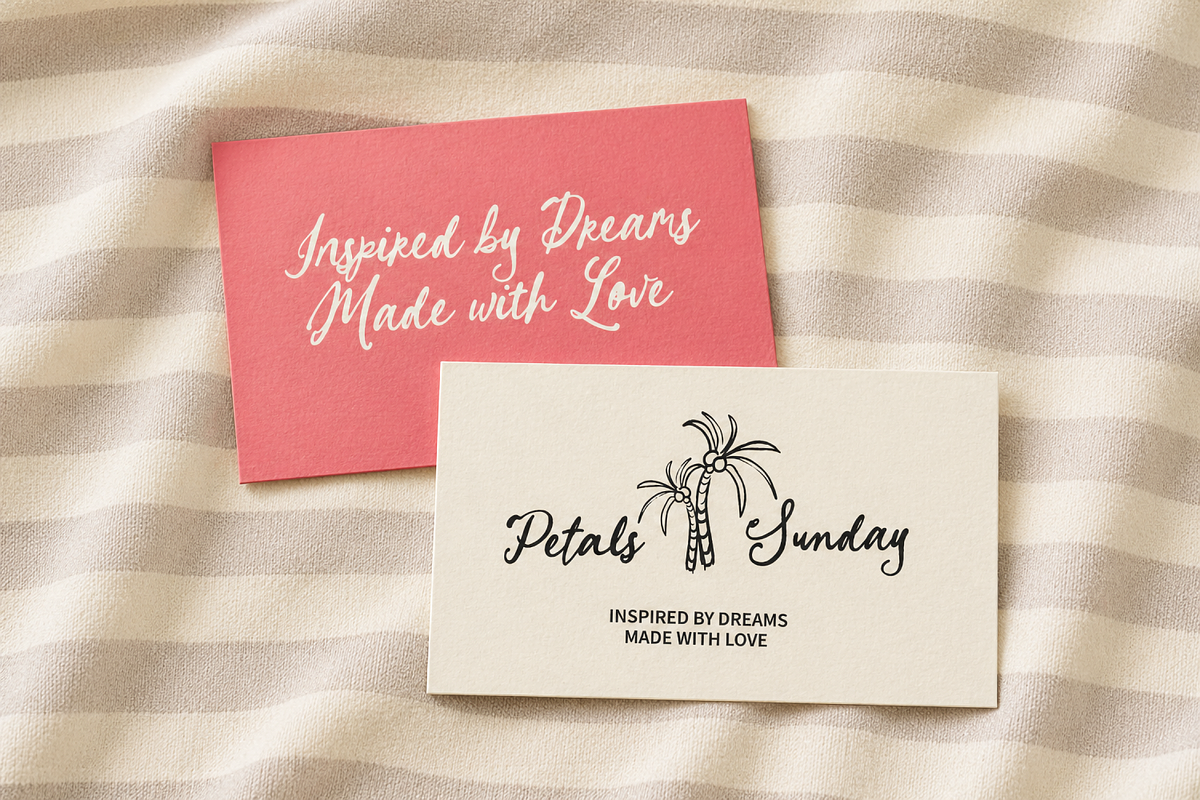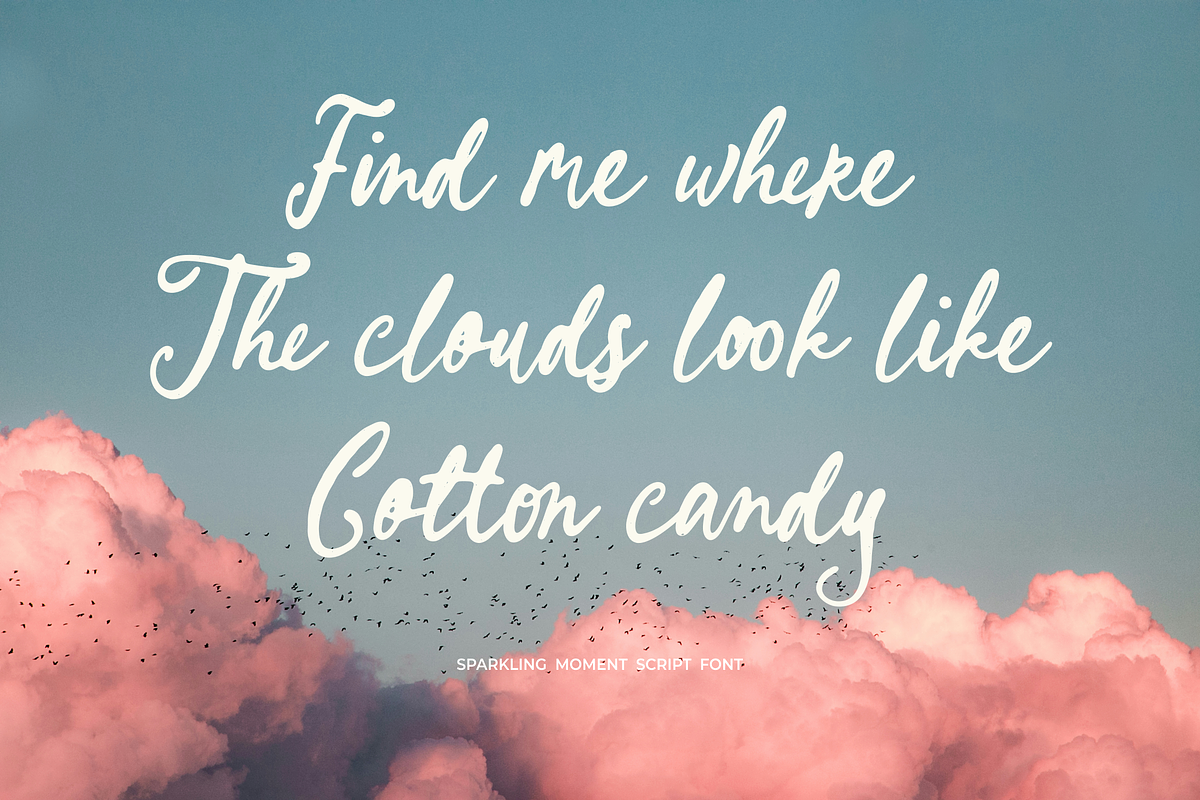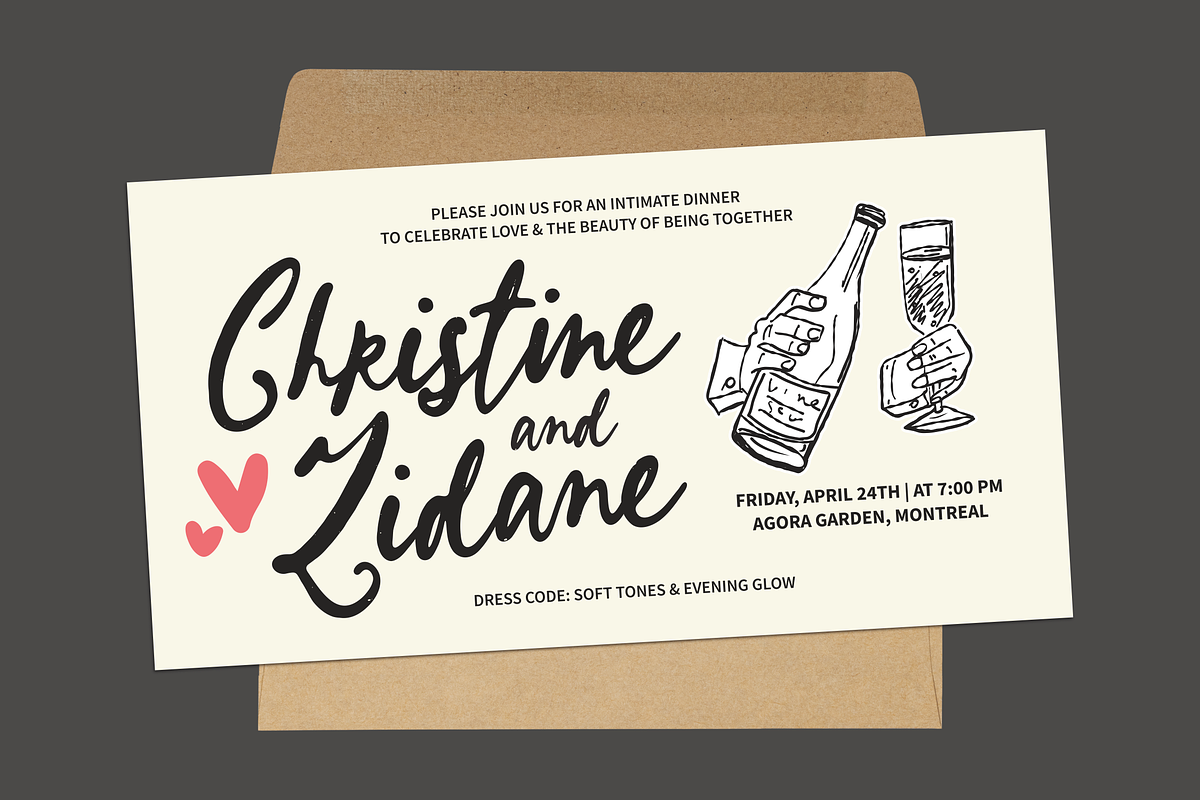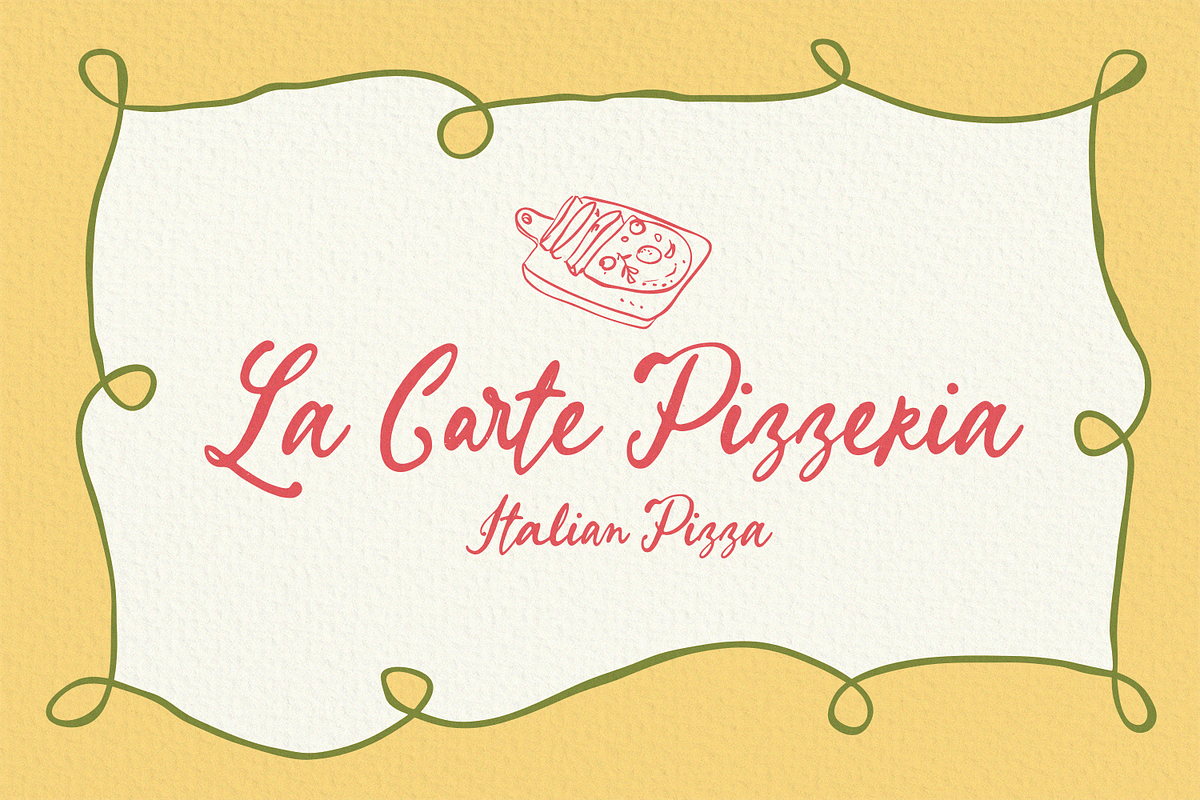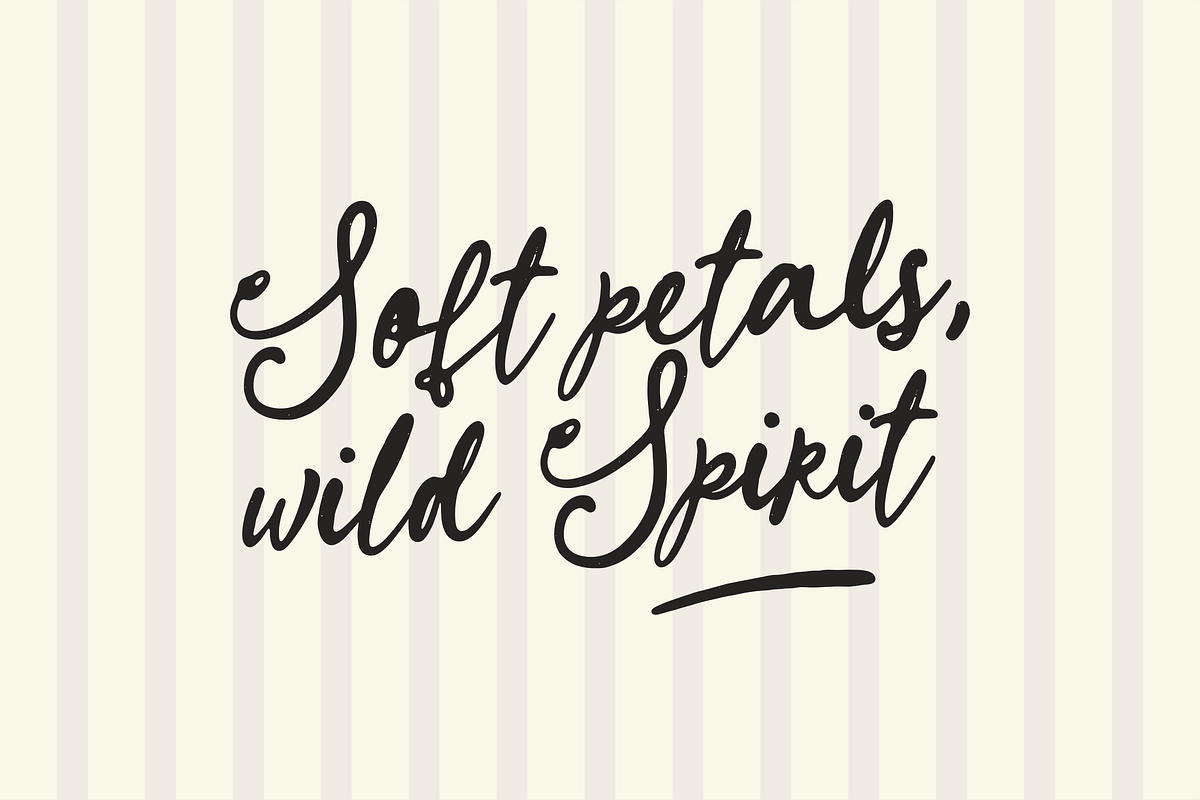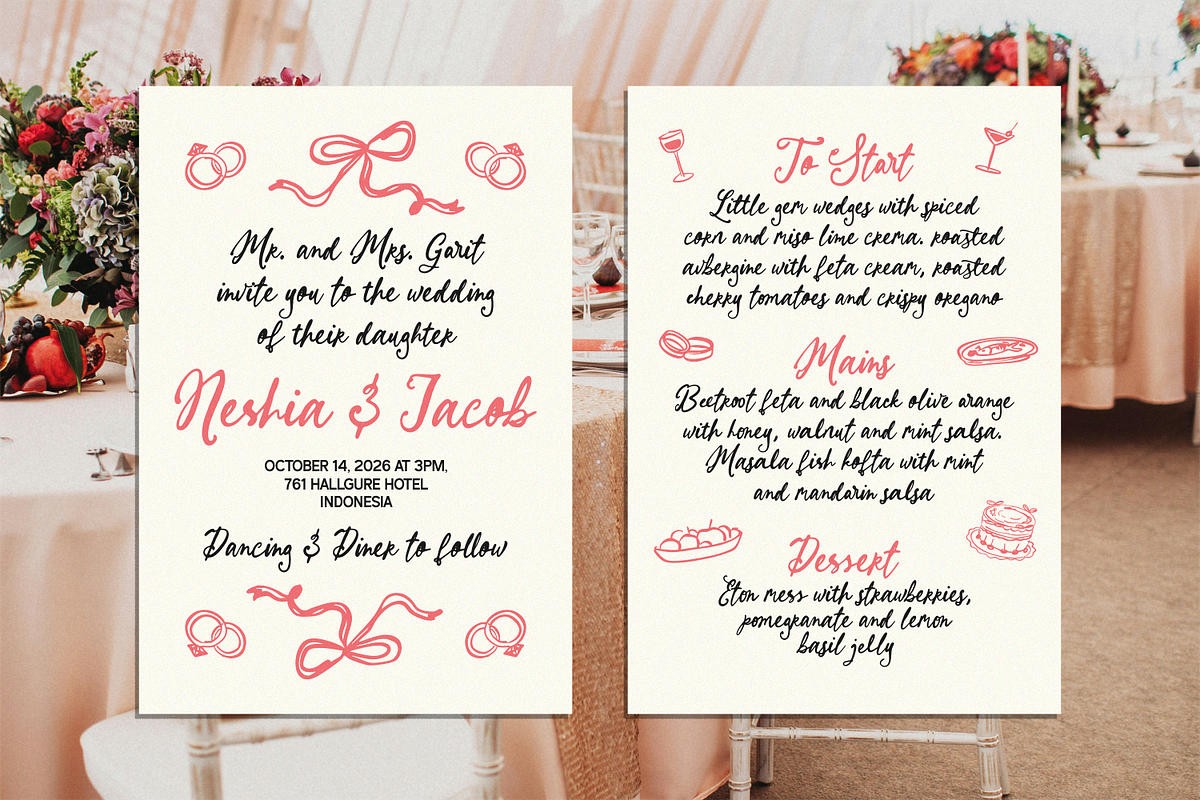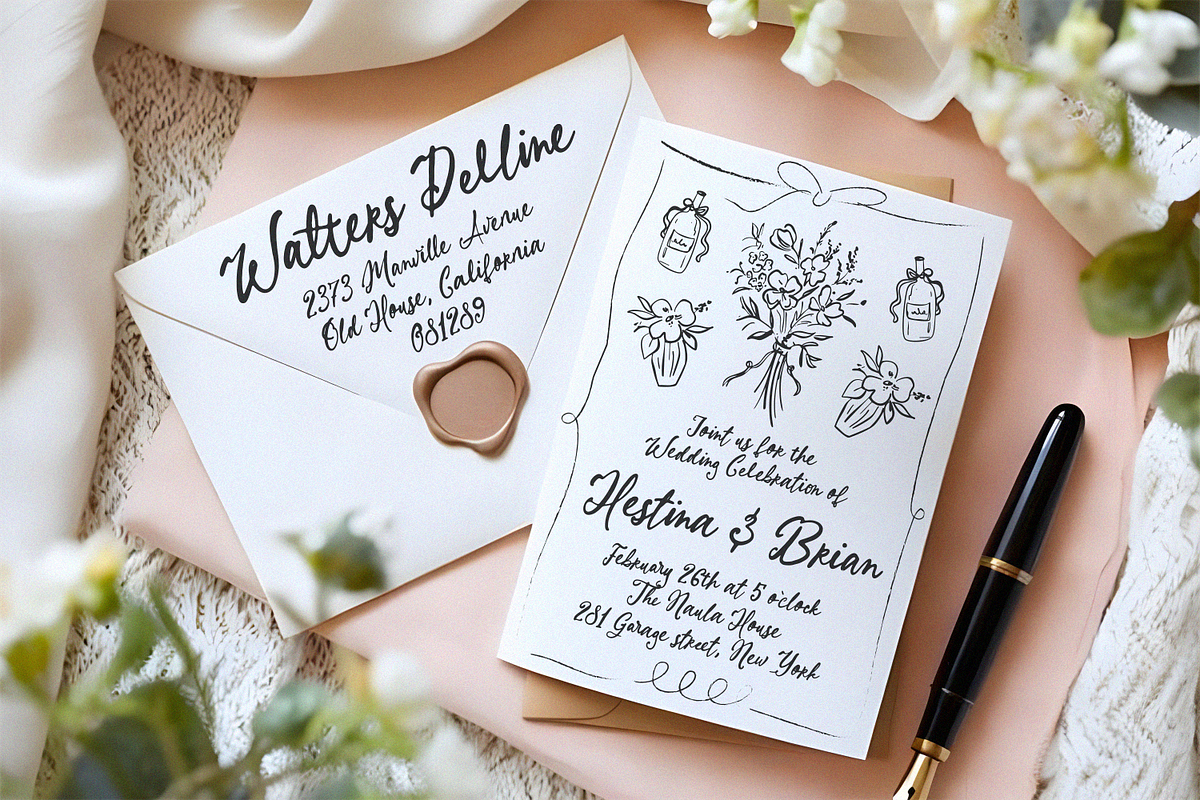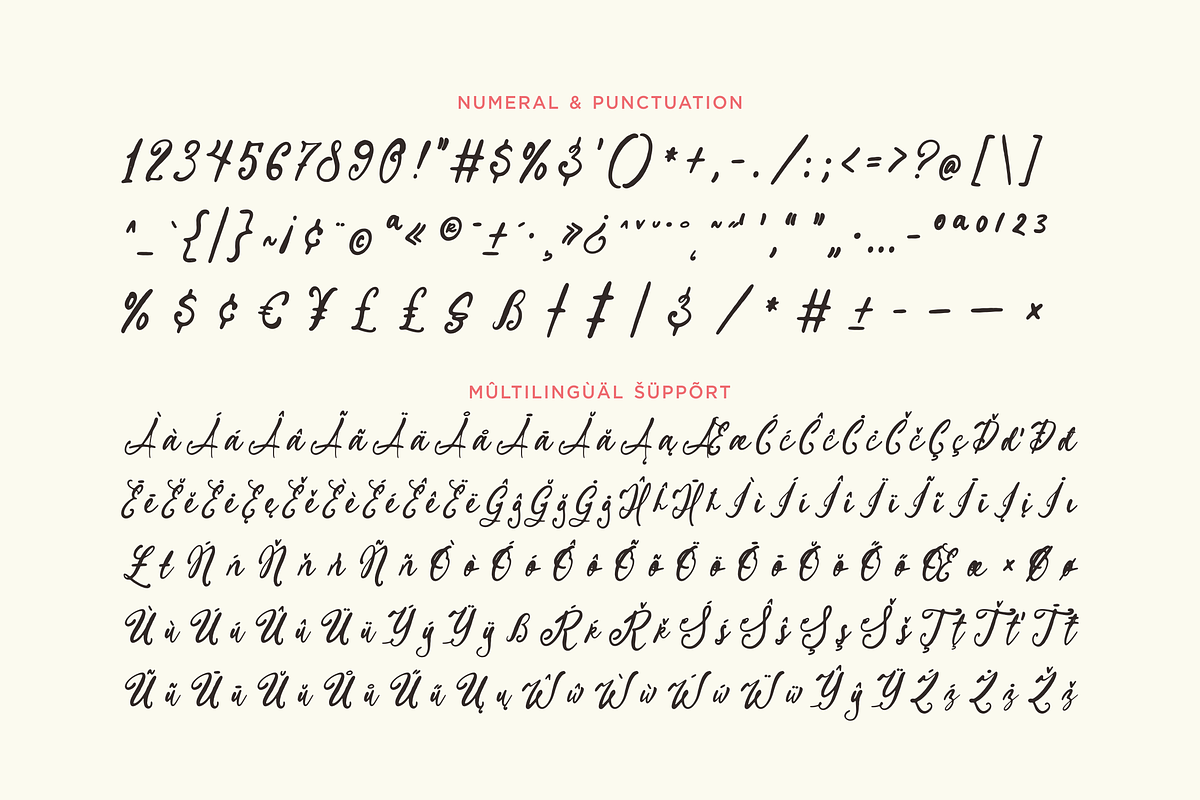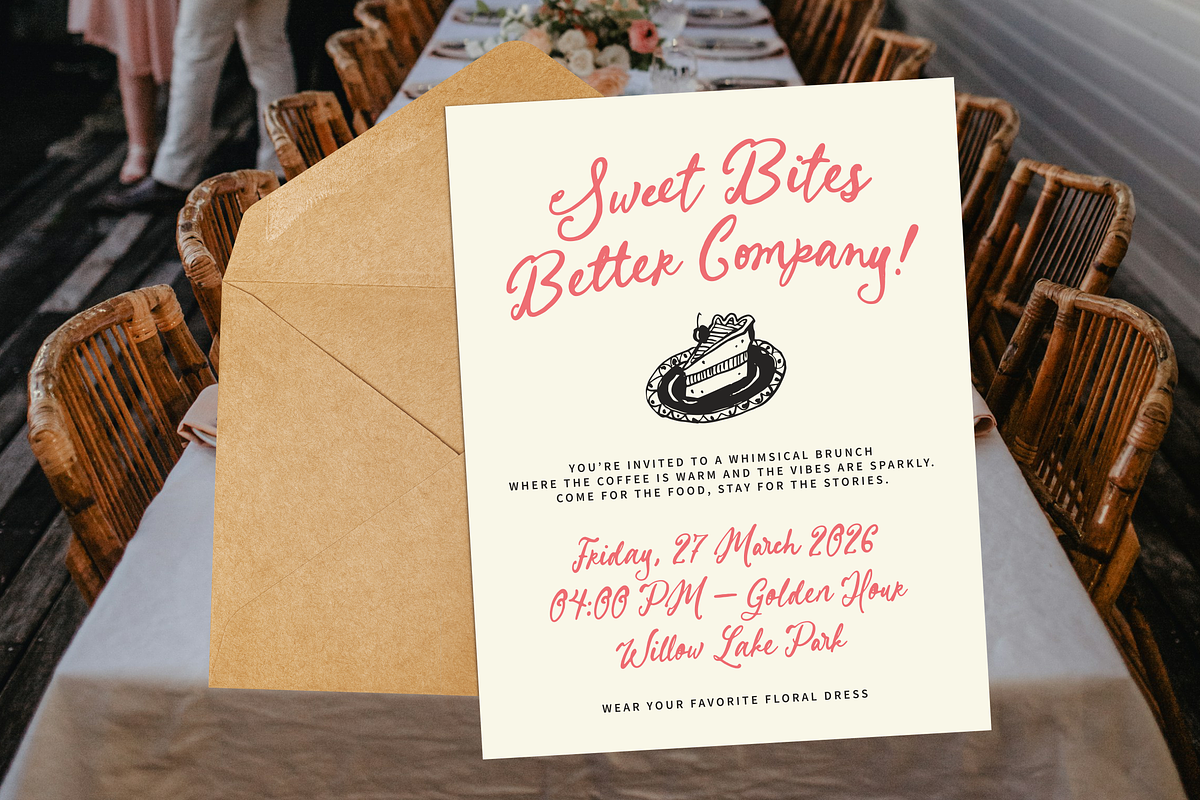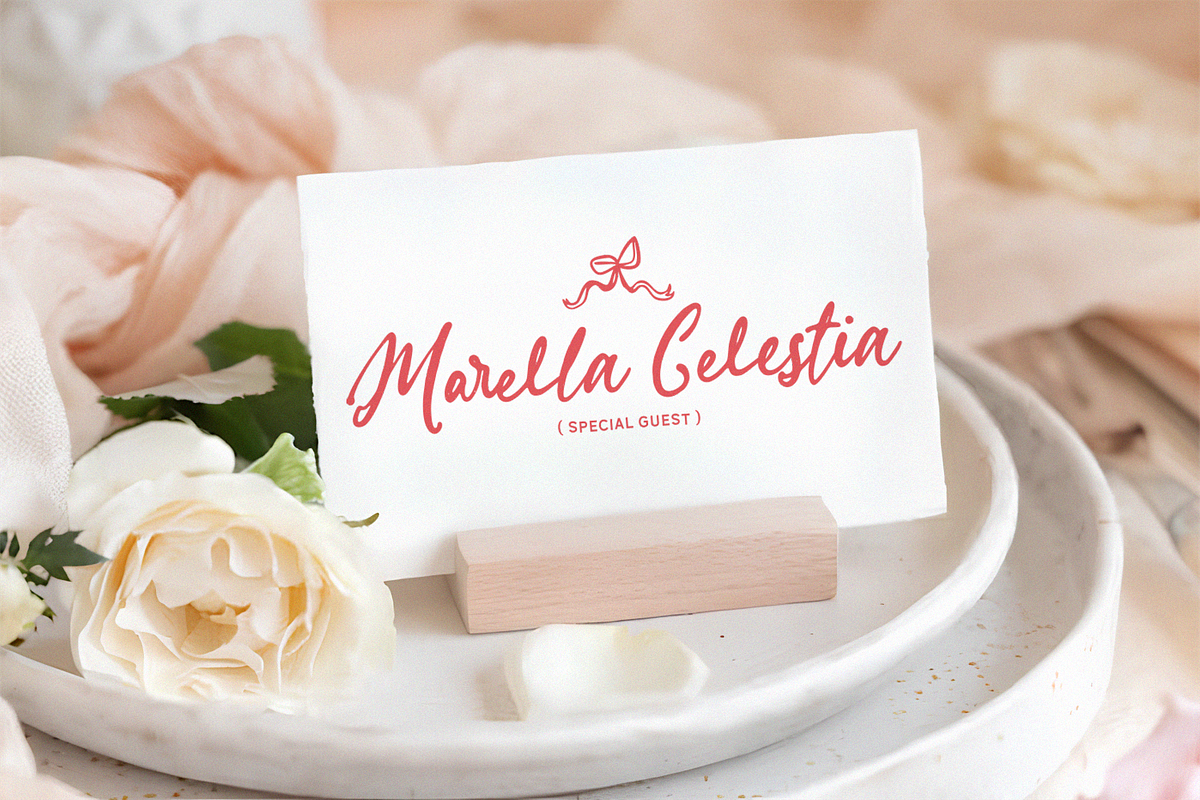
Sparkling Moment - Script Font
Looking for a Handwritten Script Font That Feels Warm, Romantic, and Full of Sparkle?
Meet Sparkling Moment, a whimsical handwritten script font designed to bring warmth, celebration, and heartfelt personality into your creative projects.
With flowing strokes, playful curves, and a romantic, handmade feel, Sparkling Moment adds a soft, lively, and expressive touch to every design.
Perfect for projects that need to feel personal, feminine, joyful, and beautifully memorable.
Wedding invitations and save-the-date cards
Bridal stationery and romantic event design
Café branding and restaurant menus
Lifestyle brands and boutique packaging
Greeting cards and lifestyle quotes
Feminine logos and brand marks
Product labels and packaging design
Social media templates
Brunch party invitations
Modern lifestyle design
Creative business branding
Why You’ll Love
Sparkling Moment is made for designers who want typography that feels natural, charming, and emotionally engaging.
Its organic handwritten style gives your work a handcrafted look while still feeling clean, polished, and commercially ready.
This elegant script font is perfect for creating romantic headlines, beautiful names, charming logos, event stationery, menu designs, product packaging, and social media graphics with a personal signature-style touch.
Whimsical handwritten script style
Uppercase and lowercase letters
Numerals and punctuation
Alternates and ligatures
Bring a warm handwritten sparkle into your next invitation, branding, packaging, menu, or social media project with Sparkling Moment.